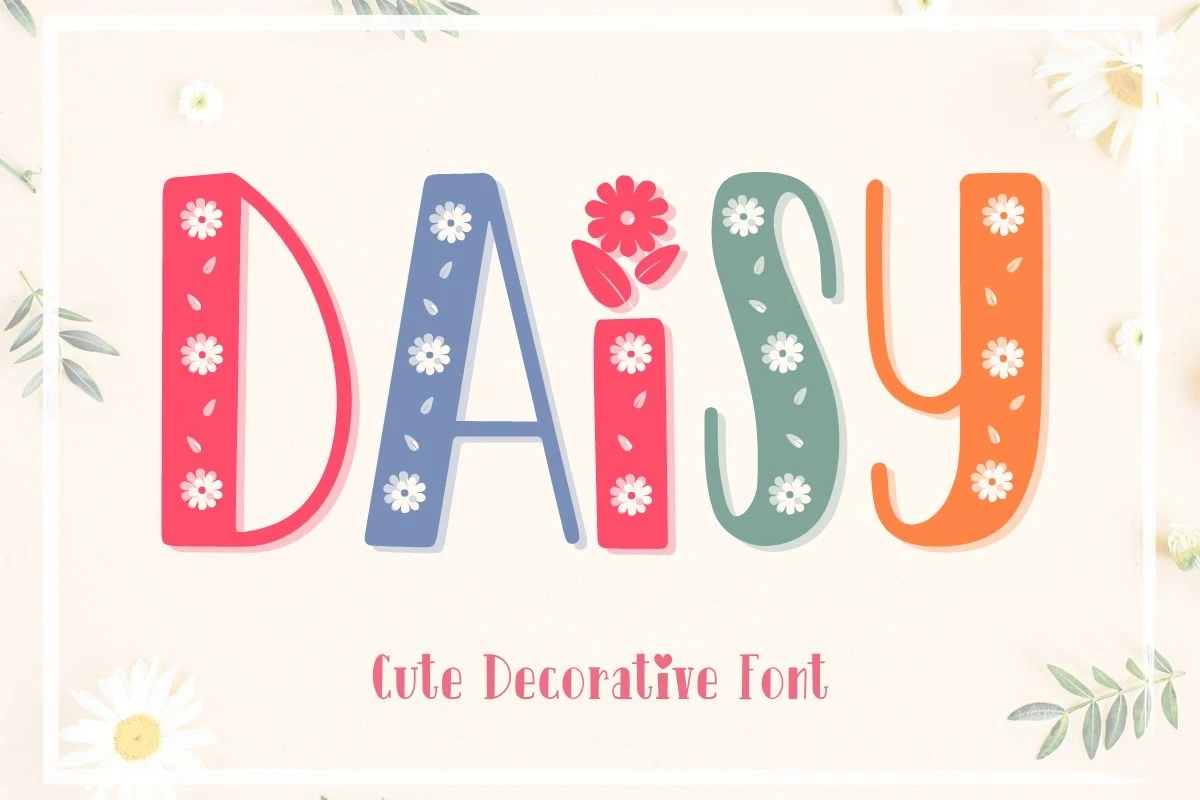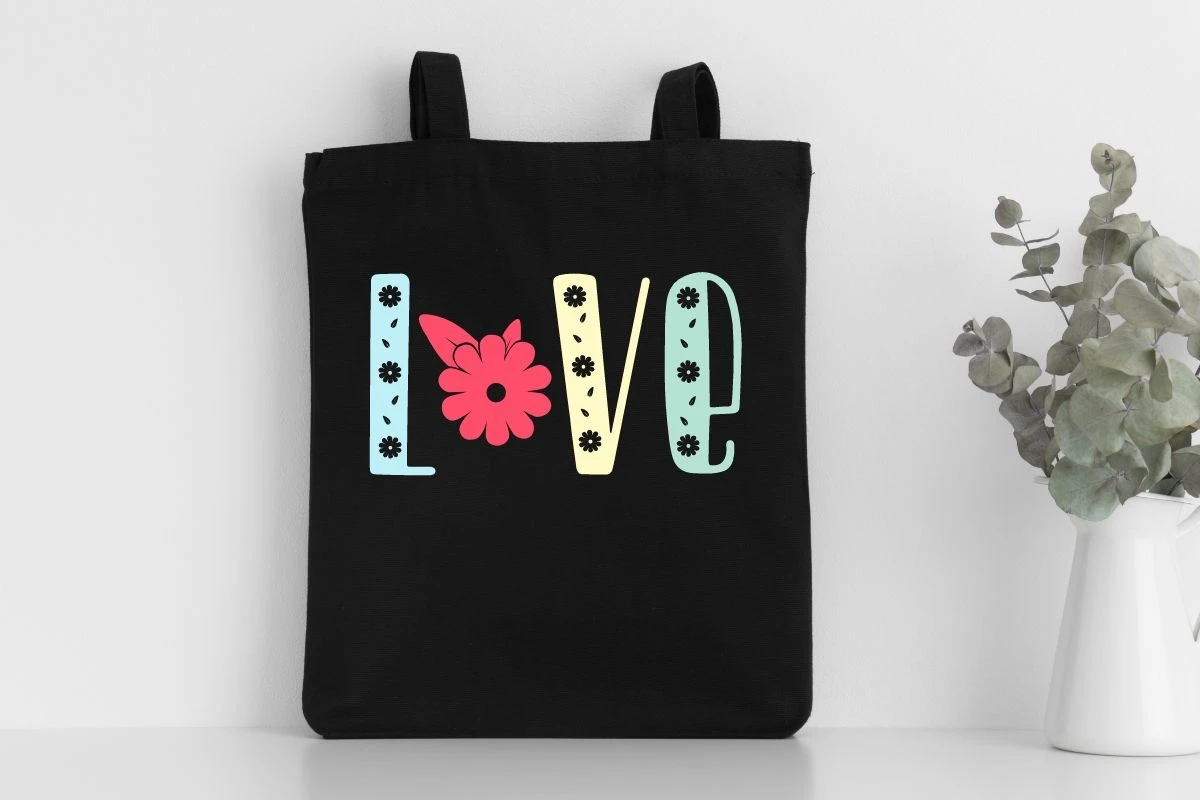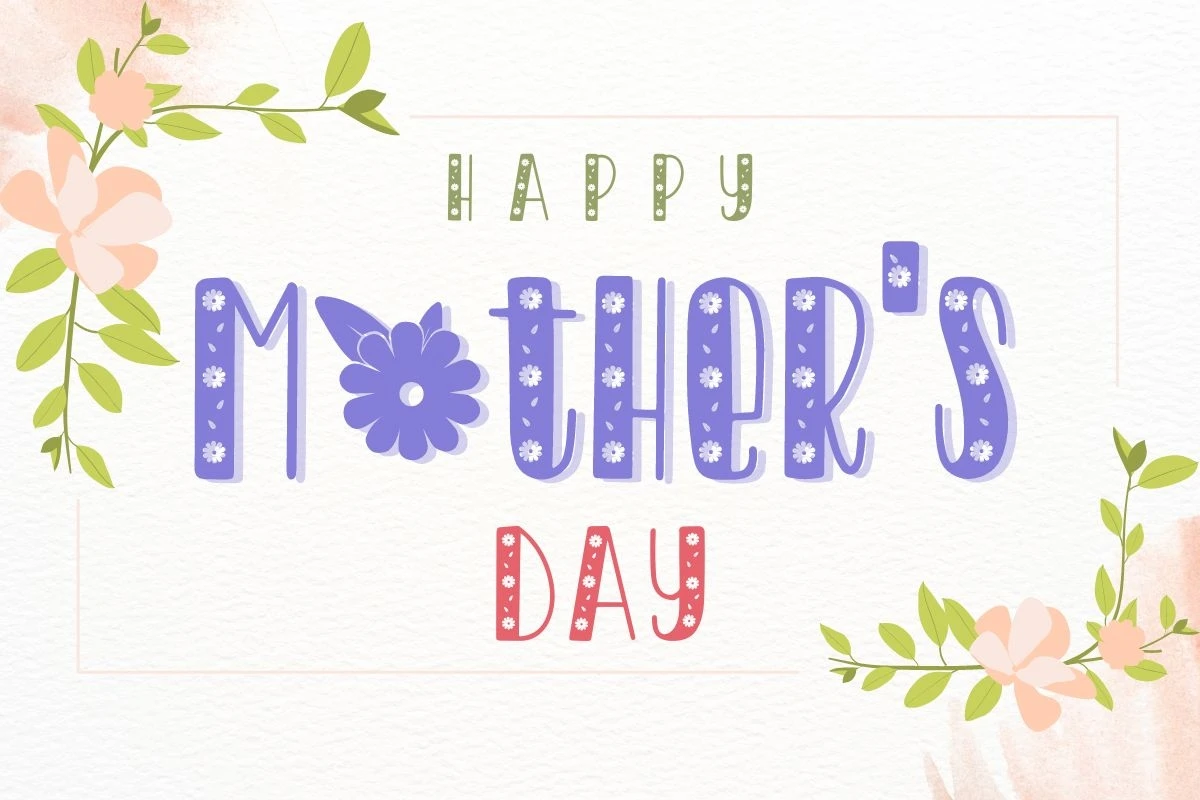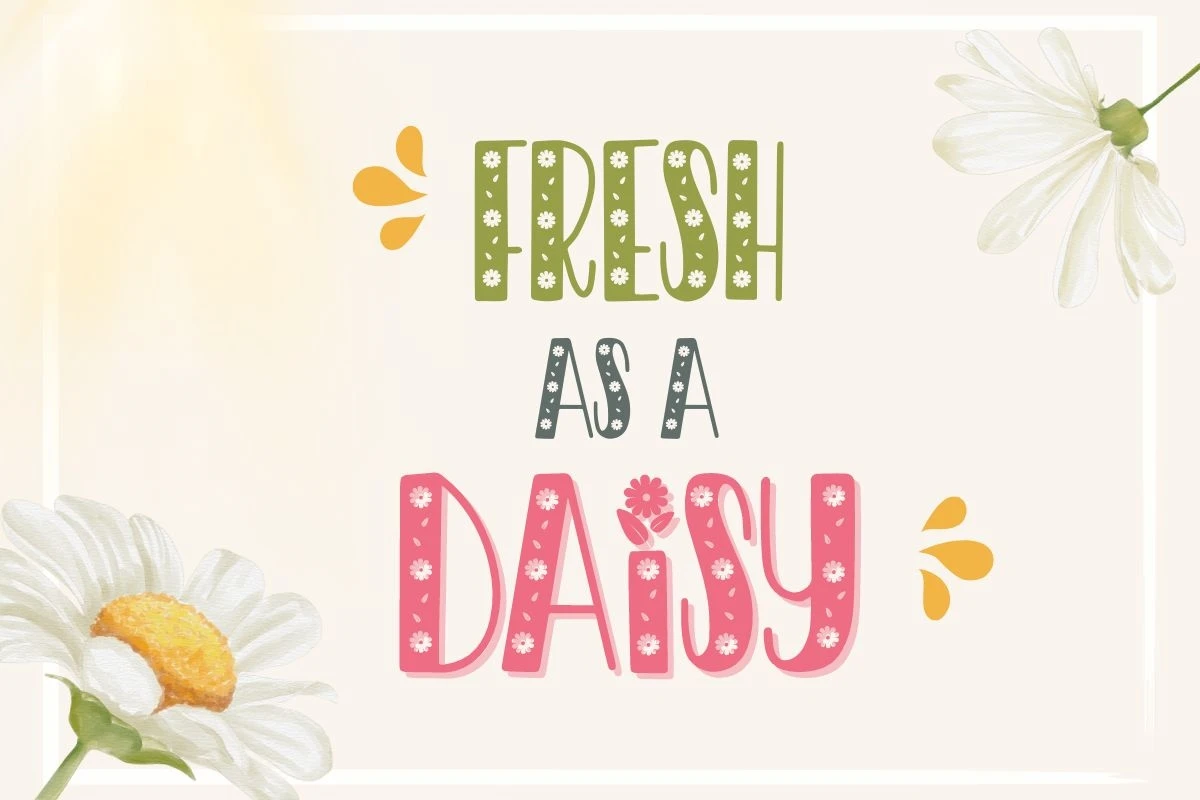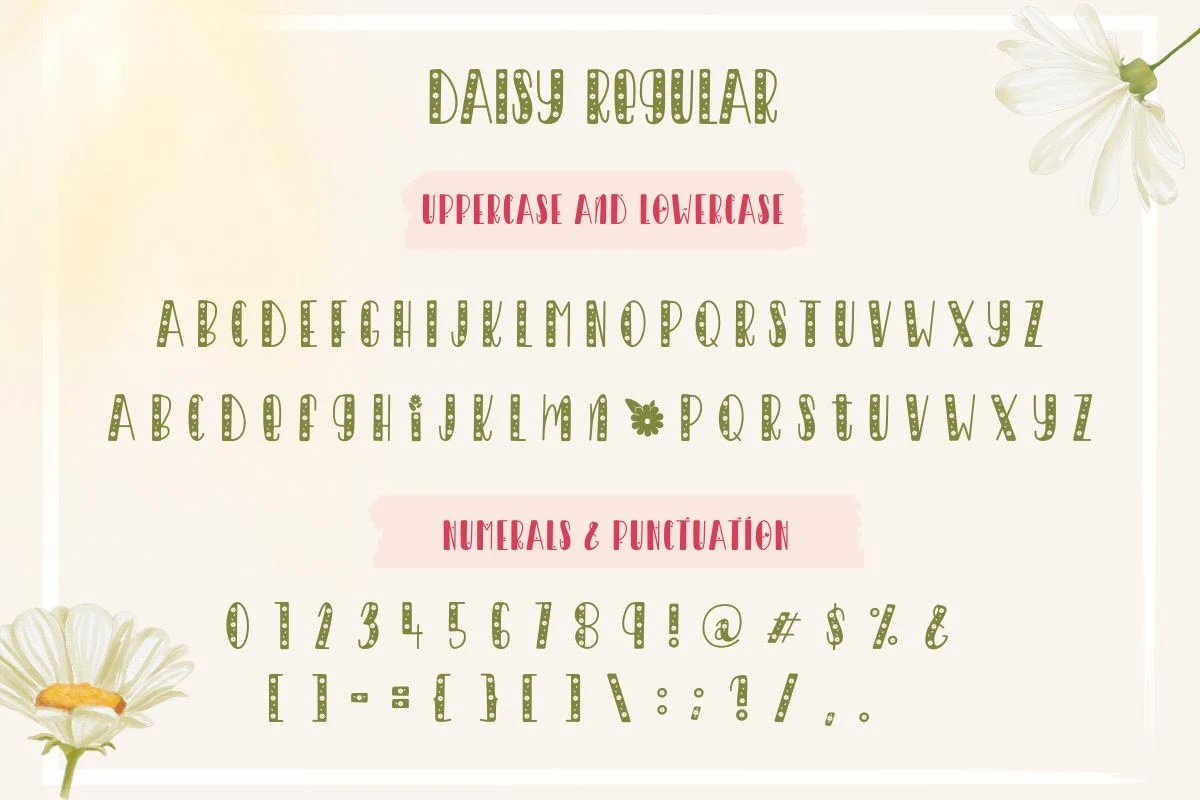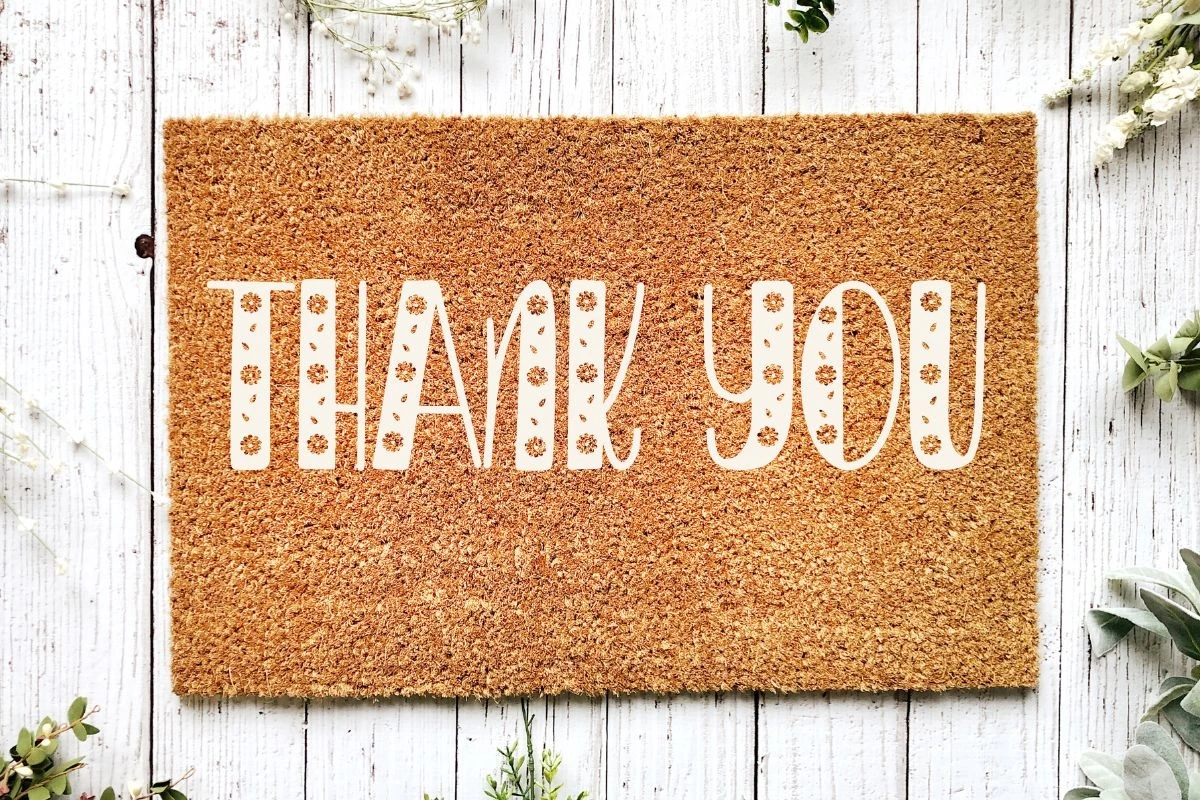
Daisy is a cute decorative font with a floral style. With its casual charm, this font is perfect for a wide pool of design ideas. You can design it to match the Christmas theme. Perfect for creating a wide variety of new designs to match products such as banners, content, mugs, cards, shirts, stationery, social media posts, and more!